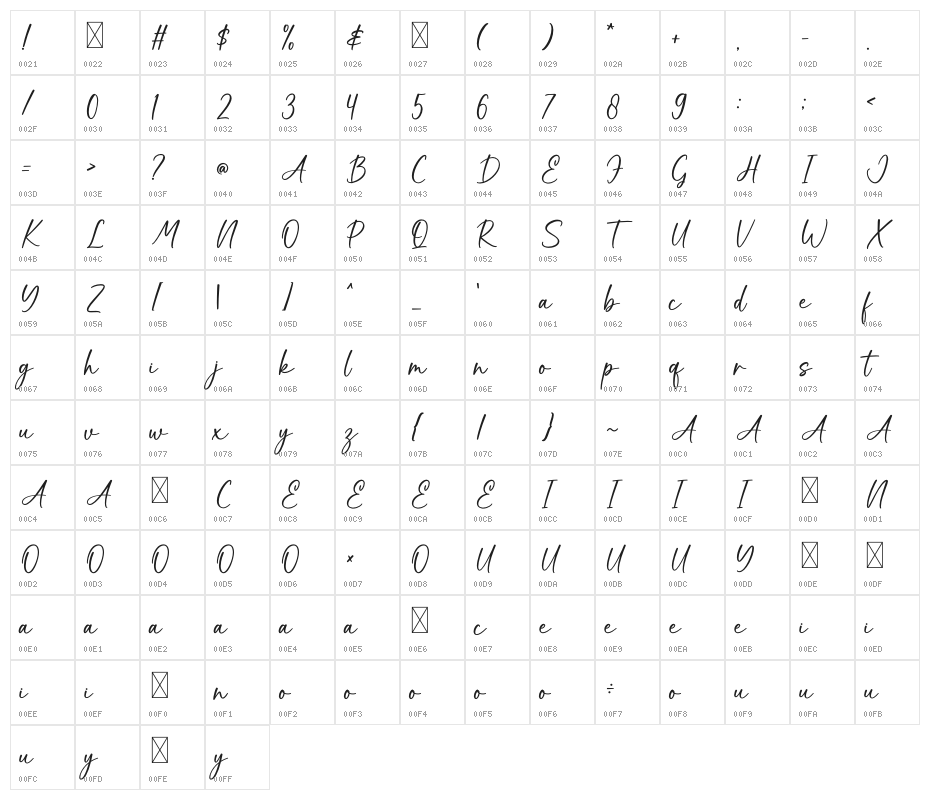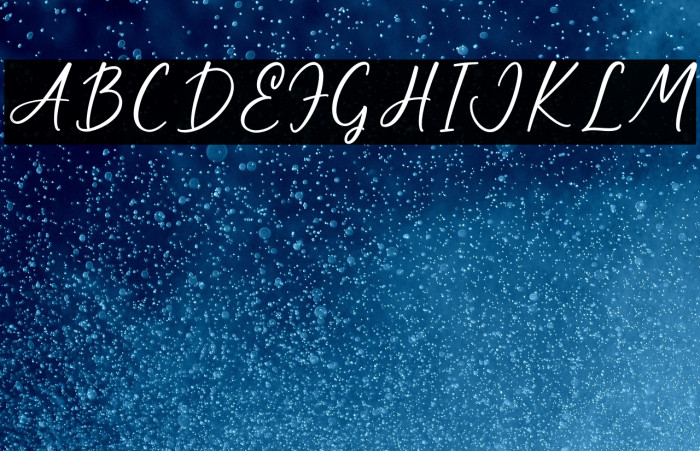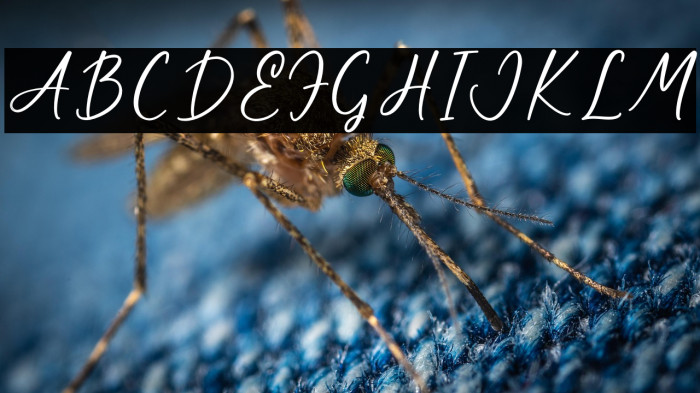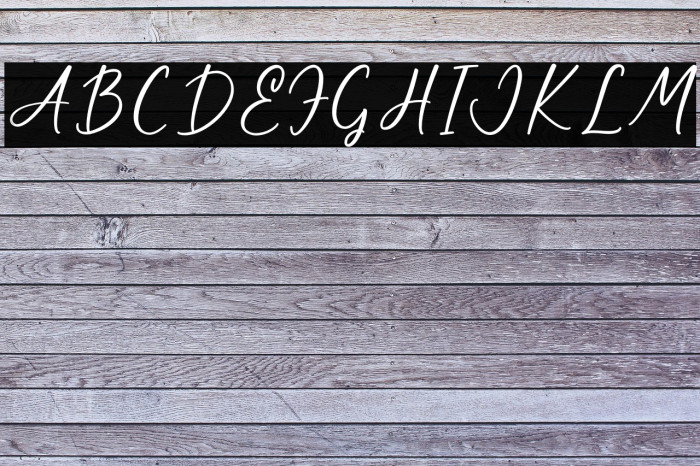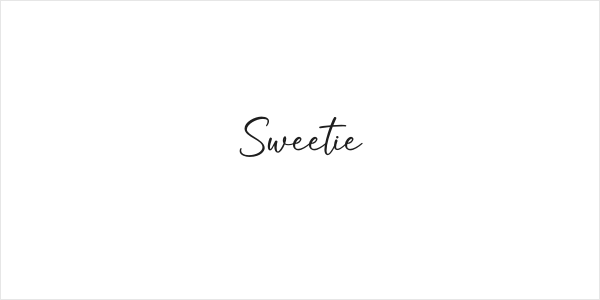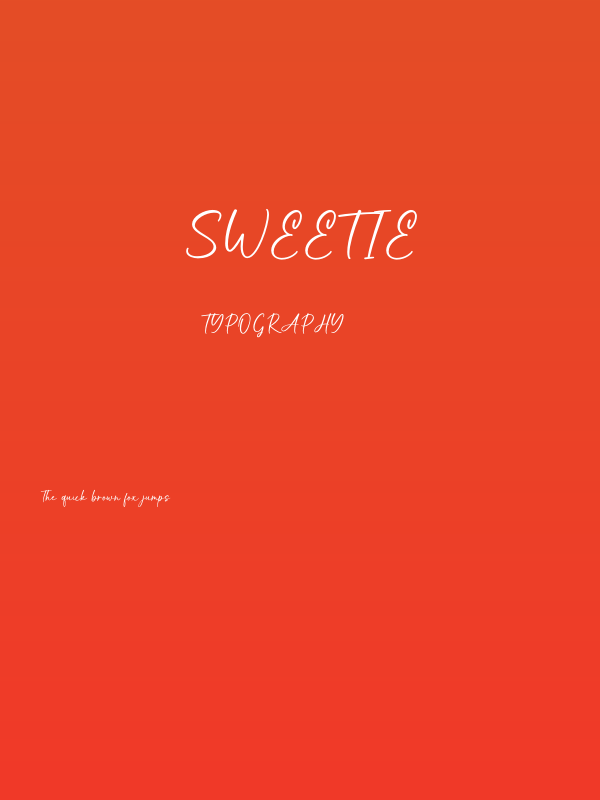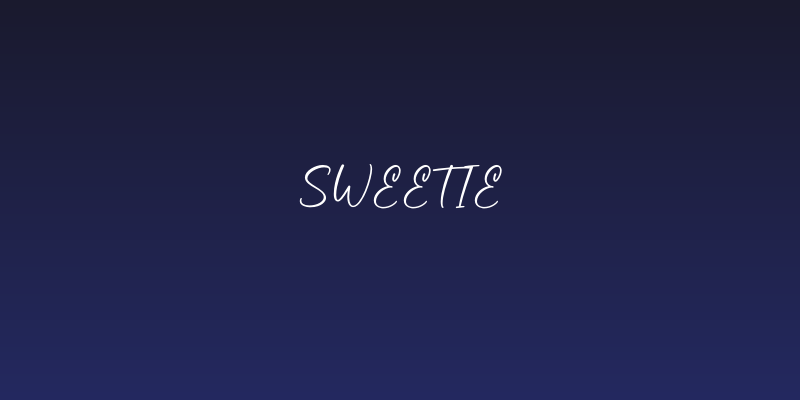
Sweetie Font
Sweetie Description
This font exudes a casual and elegant handwritten style, characterized by smooth, flowing strokes and a natural, organic feel. The uppercase letters are slightly more structured, maintaining a balance between formality and playfulness, while the lowercase letters exhibit a more freeform, cursive quality. The numerals are clear and legible, complementing the overall aesthetic. Special characters are thoughtfully designed to match the font's fluidity. This font is versatile, offering a personal touch to any design project.
| Overall Style | Casual, Elegant |
| Use Case | Logos, Invitations, Social Media |
| Proposed Projects | Ideal for wedding invitations, greeting cards, personal branding, and social media graphics. |